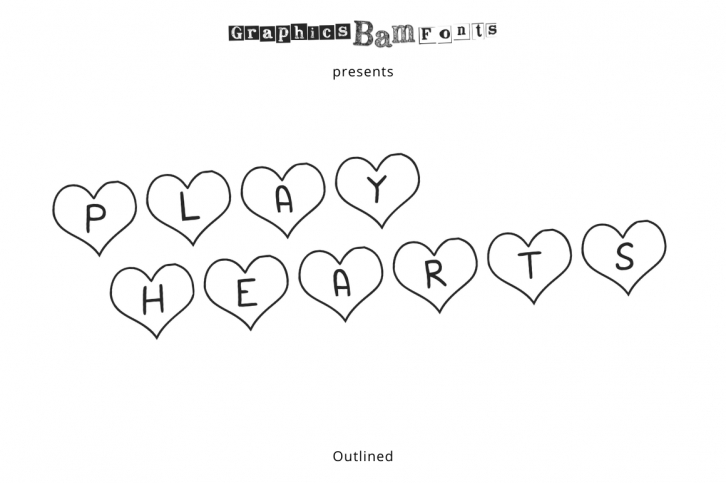
Play Hearts is a sweet, romantic and delicate decorative font. Use it for each of your Valentine’s Day creation, love letter or pretty much any design that requires a warm touch. Keep an eye out for Play Heart regular too!